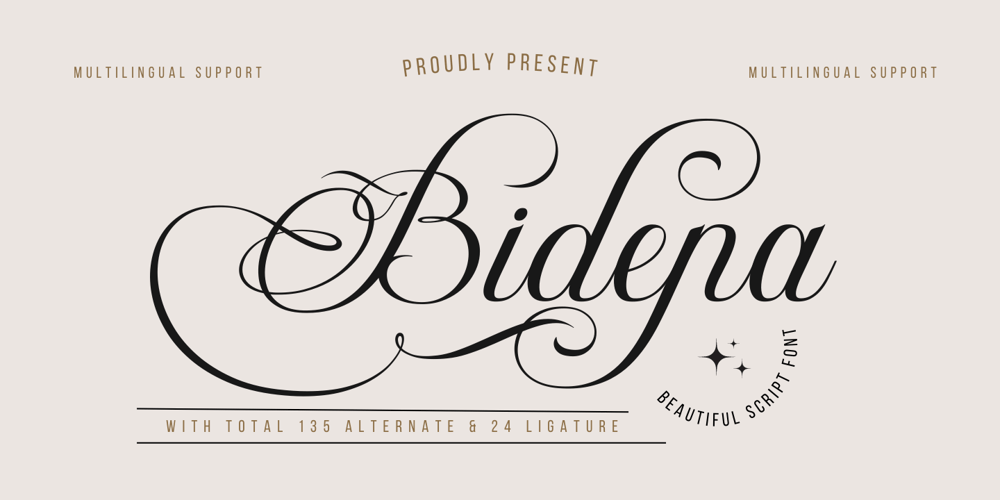
Bidena
Bidena font
Bidena Font Family was designed by Rozikan and published by Twinletter. Bidena contains 1 styles and family package options. Introducing Bidena, the perfect script font for those looking to add a touch of elegance and sophistication to their designs. With its unique and stylish curves on each character, Bidena is perfect for all kinds of projects that require a touch of sophistication and class.This font features stylistic set alternates and ligatures that add an extra element of style and creativity to your work. Its flowing lines and intricate details create a stunning and memorable impression that is sure to leave a lasting impression on your audience.Bidena is perfect for any design project, from wedding invitations to branding and advertising materials. Its unique and versatile style makes it the perfect choice for designers who want to add a touch of personality and character to their work.So whether you’re creating a logo, a product label, or a poster, Bidena is the perfect script font that is sure to help you make a statement and stand out from the crowd. Try it out today and see for yourself just how unique and versatile Bidena can be!What’s Included :- File font- All glyphs Iso Latin 1- Alternate, Ligature- Simple installations- We highly recommend using a program that supports OpenType features and Glyphs panels like many Adobe apps and Corel Draw so that you can see and access all Glyph variations.- PUA Encoded Characters – Fully accessible without additional design software.- Fonts include Multilingual support